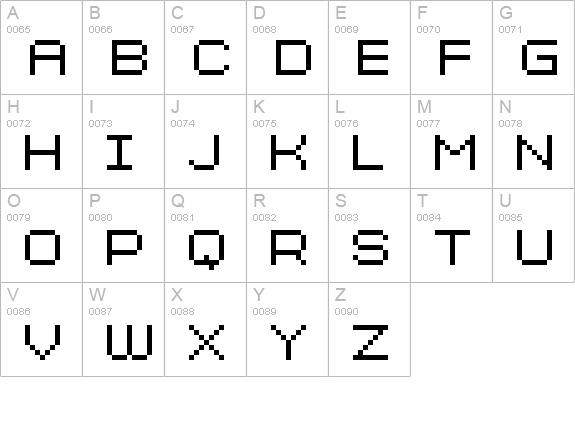
Grixel Kyrou 7 Wide is a distinctive, extended-width variant in the Grixel typeface family \xE2\x80\x94 well suited to design and typography projects.
Grixel Kyrou 7 Wide font is a modern and stylish typeface that exudes sophistication and elegance. Its sleek lines and wide letterforms make it perfect for a variety of design projects, from branding to editorial design. The font is meticulously crafted with attention to detail, ensuring that every character is perfectly balanced and visually appealing. What sets Grixel Kyrou 7 Wide font apart is that it is available for free download at FontsMarket.com. This means that designers and creatives can easily access this stunning font without any cost, making it a valuable resource for anyone looking to elevate their designs. Whether you're working on a print project or a digital design, Grixel Kyrou 7 Wide font is sure to make a statement and leave a lasting impression. Download it today and add a touch of sophistication to your next project.